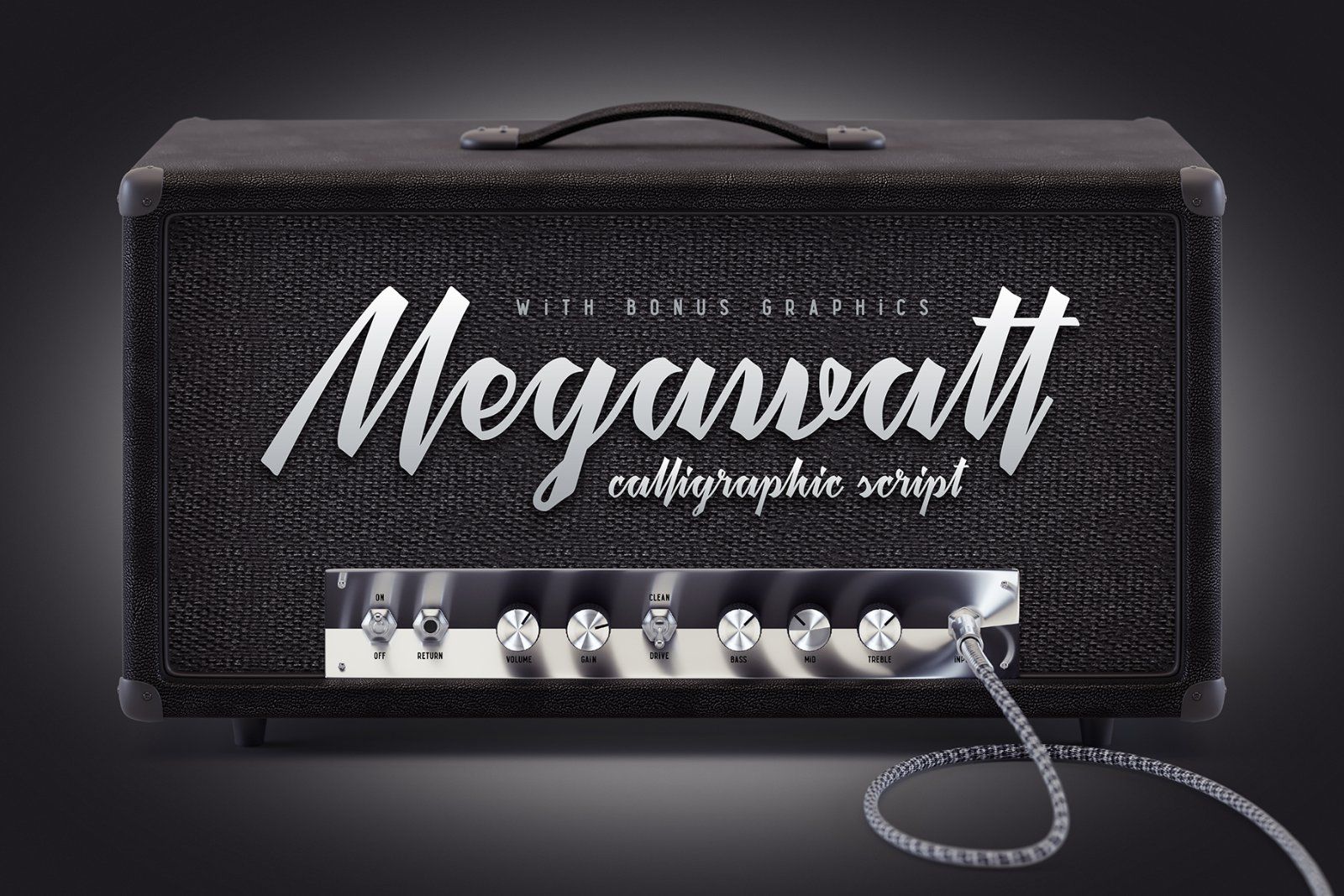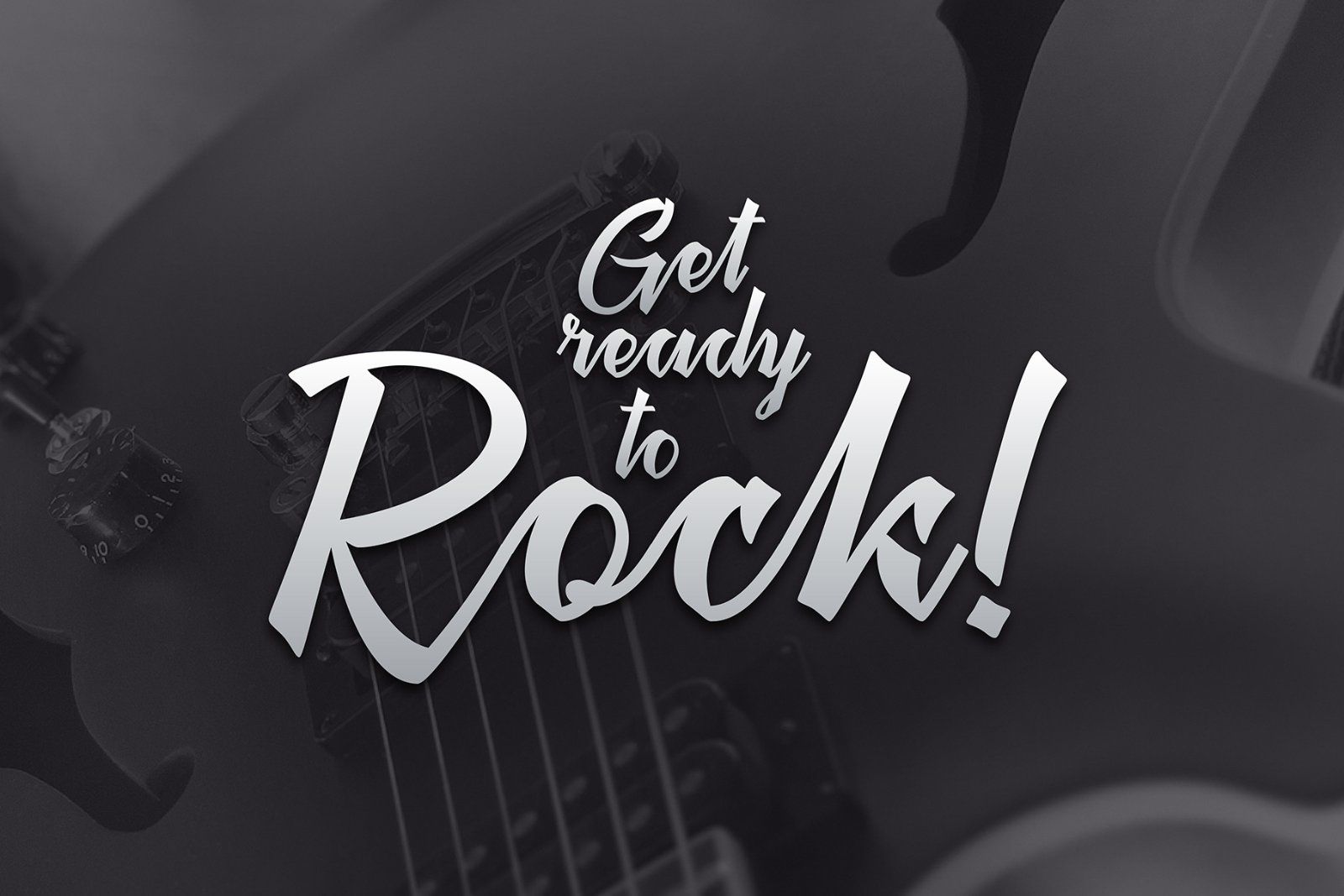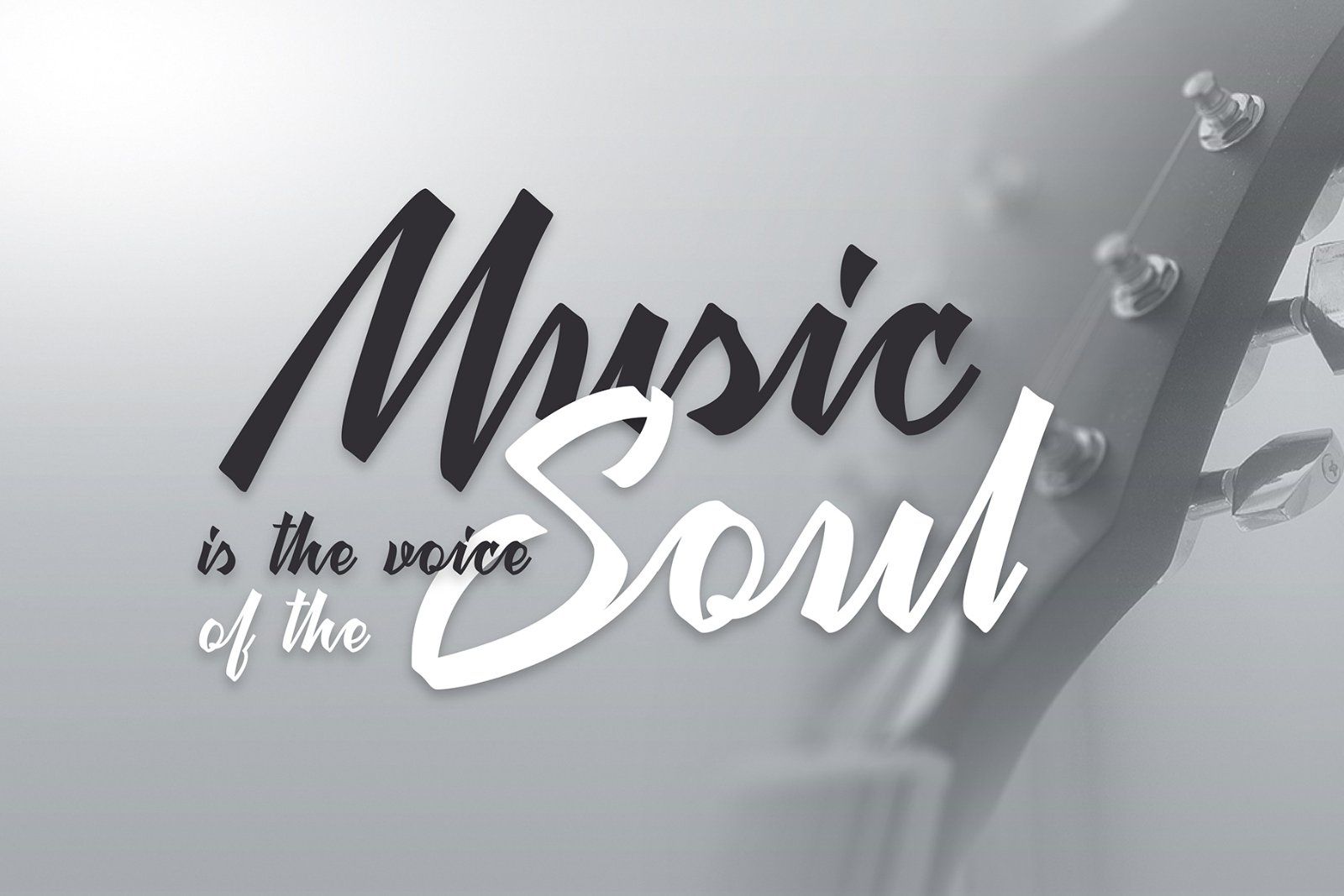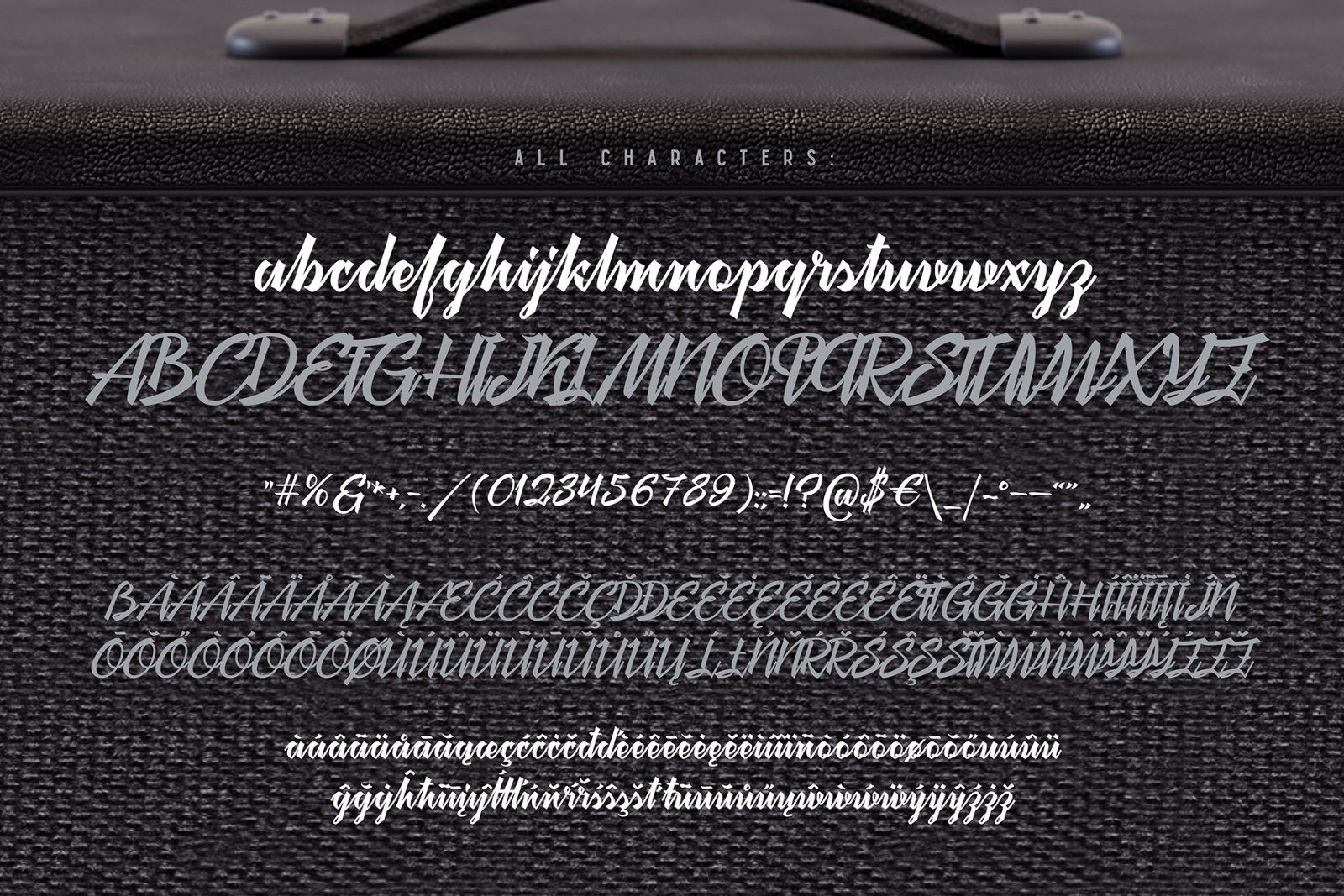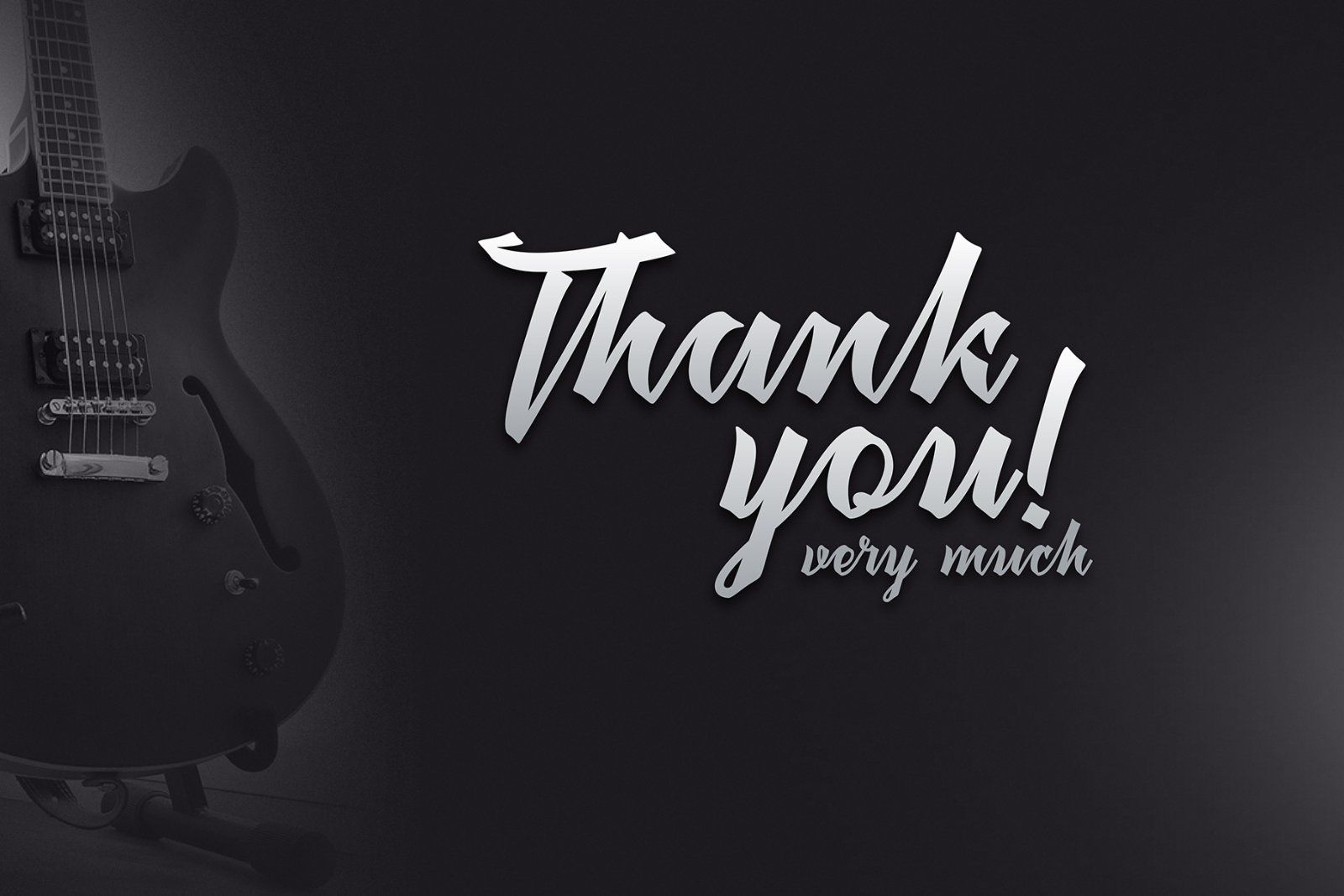
Hi! Introducing calligraphic font named "Megawatt". It's a script with connected letters, lots of characters including West European languages support and few ligatures. Also, as a bonus, you'll get a high quality 3d render of guitar amplifier from first screenshot in layered PSD format.